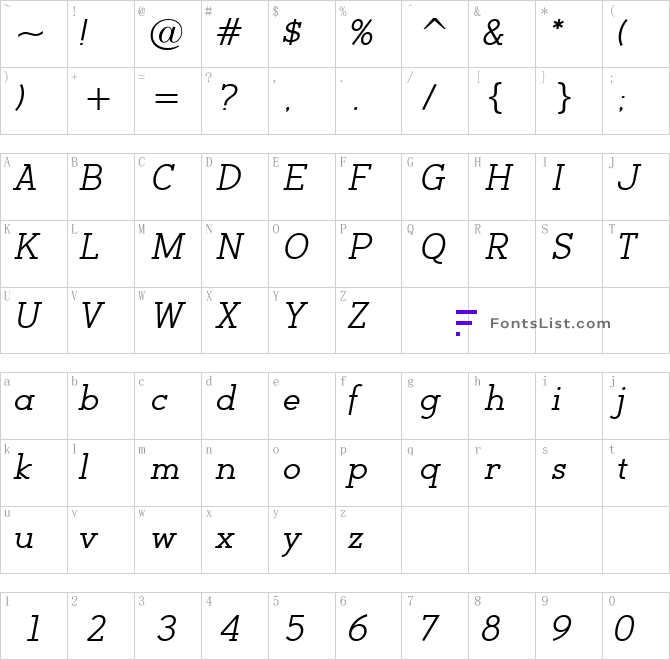
- Font Name:BacktalkSerif BTN
- Subfamily:Oblique
- Subfamily:BacktalkSerif BTN Oblique
- Full Name:BacktalkSerif BTN Oblique
BacktalkSerif-BTN-Oblique.ttf is a very beautiful artistic font, BacktalkSerif-BTN-Oblique.ttf is widely used in the design and printing of various books and pictures,BacktalkSerif-BTN-Oblique.ttf has a strong visual impact,BacktalkSerif-BTN-Oblique.ttf is a commonly used font in newspapers, magazines and books, and is used in posters, e-commerce Poster design, store design, logo design, font design and other fields.BacktalkSerif-BTN-Oblique.